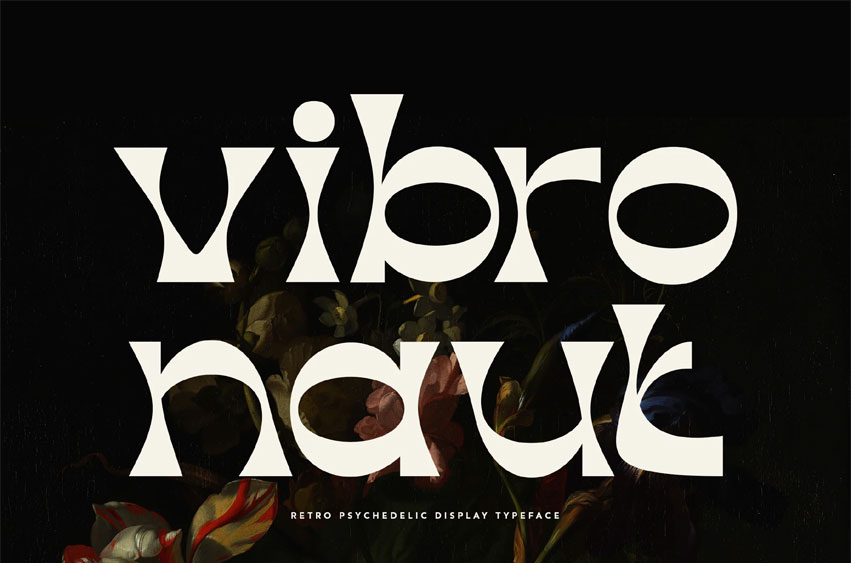
Vibronaut Font
Vibronaut Font is a bold psychedelic display font inspired by the groovy vibes of the 60s and 70s. Its wavy curves and expressive letterforms make a striking impression, perfect for designs that crave retro charm and high-impact style.
Whether you’re crafting album covers, posters, fashion branding, or editorial layouts, Vibronaut delivers a loud, unforgettable personality in every letter.
Font Features:
• Uppercase & Lowercase Letters
• Numbers & Select Punctuation
• Alternates & Ligatures
Perfect for: Retro posters, psychedelic album covers, vintage branding, music merch, editorial headlines, fashion graphics, and creative social media content.